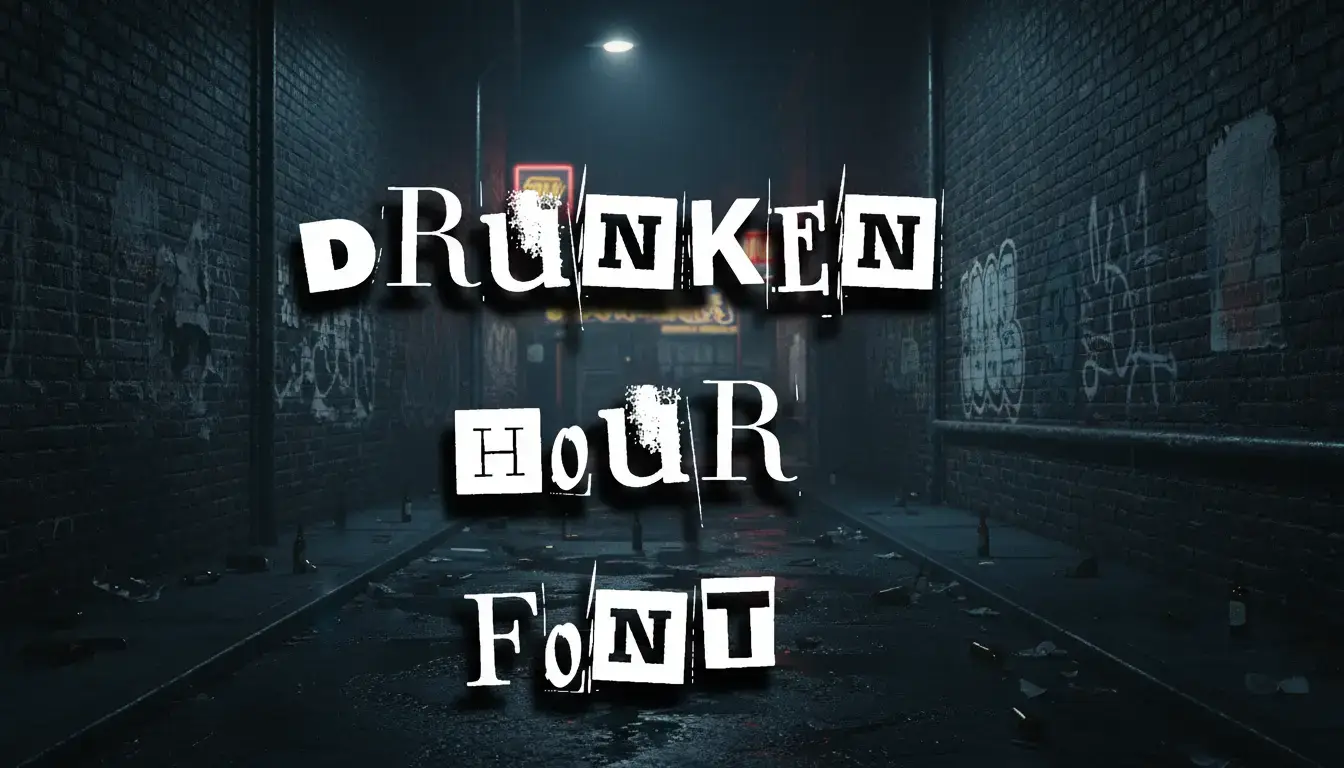
Drunken Hour Font
Drunken Hour
Drunken Hour is a fancy font designed by Jakob Fischer / pizzadude.dk. It's a decorative display font with plenty of personality, made to grab attention. It's a free download, and you can try it with your own text in the preview above first.
Drunken Hour covers the full alphabet in upper and lowercase, plus all ten numbers, so you can set names, dates and prices without switching fonts. Common punctuation such as &, !, ? and @ is included as well. It doesn't include accented letters such as é or ñ, which makes it an English-only font.
Think of Drunken Hour for posters, logos and eye-catching headlines. Use it for one standout word or headline and let simpler fonts handle the rest.
No. Drunken Hour has no accented letters such as é, ñ or ü, so it's best for English text.